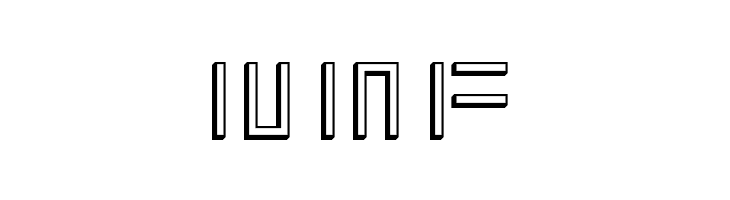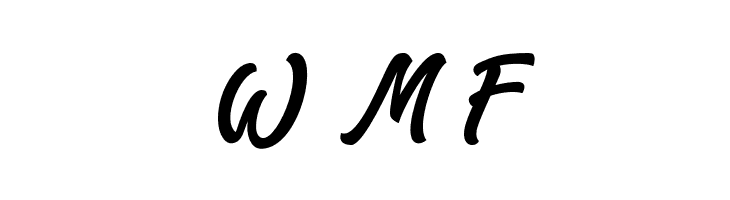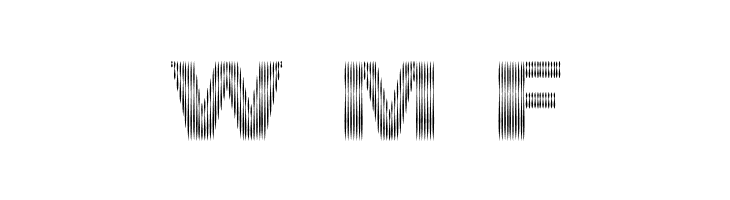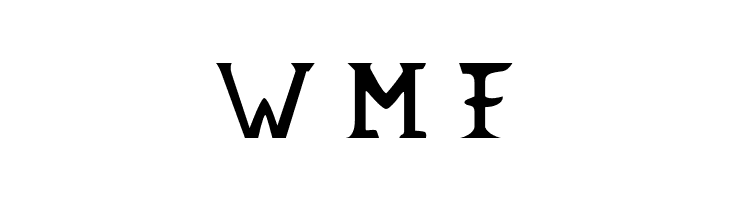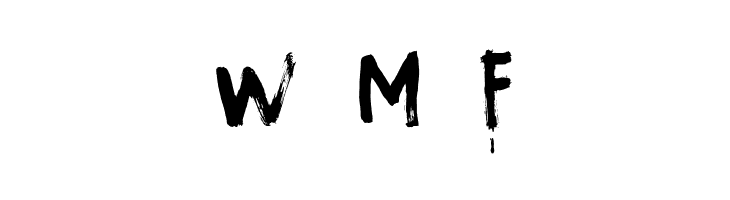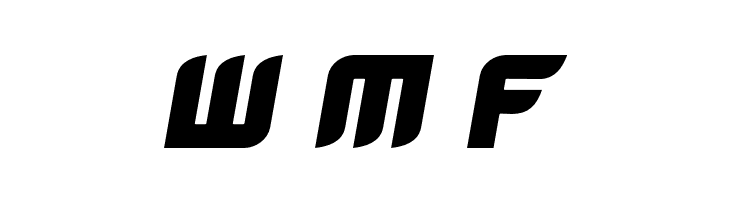
A futuristic 3D outline font with geometric shapes and a modern aesthetic.
A bold, flowing script font with elegant curves and smooth strokes.
A bold, striped font with high contrast and a modern, decorative style.
A bold, decorative font with historical and artistic influences.
A collection of bold, high-contrast icons and symbols in a modern style.
A bold, graffiti-inspired font with a hand-painted, textured style.
An artistic and ornamental font with elegant curves and a sophisticated style.
A whimsical and decorative font with playful curls and swirls.
A bold, decorative typeface with intricate flourishes and sharp angles.
A bold, italic font with a futuristic and dynamic style.